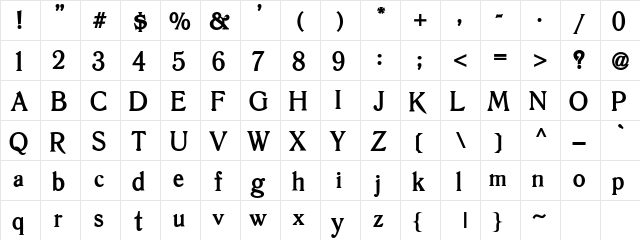
WintersetSSK Bold
Design Context for WintersetSSK Typeface
WintersetSSK takes a measured approach to typography — its balanced proportions and neutral character make it a reliable workhorse for both digital and print work. The heavy weight commands attention and anchors typographic hierarchies.